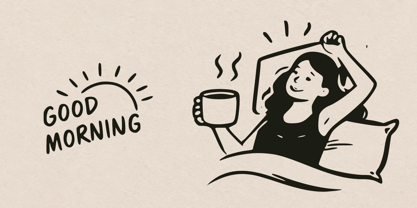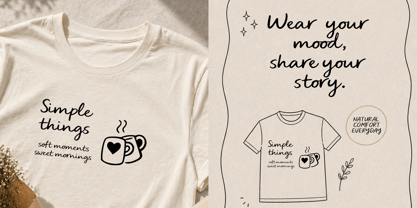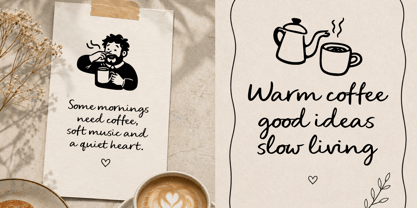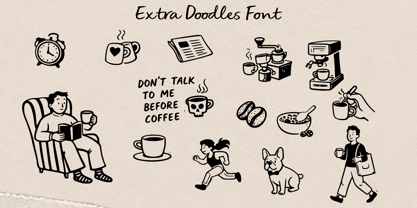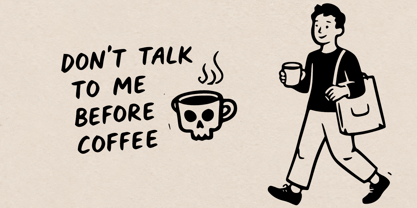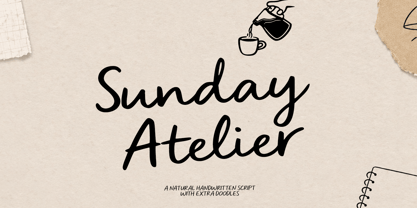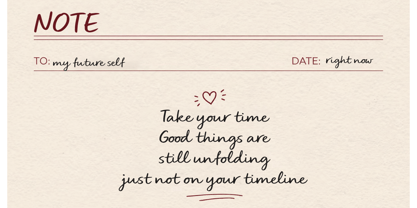
Sunday Atelier
by Cocodesign
The Sunday Atelier Font Family was designed by Muhammad Zaini and published by Cocodesign. Sunday Atelier contains 3 styles and family package options. More about this family
Sunday Atelier is a natural handwritten script font with a warm, effortless charm and clean flowing strokes. Designed to capture the beauty of authentic handwriting, this font brings a stylish and inviting touch to any creative project. With its smooth curves, balanced letterforms, and casual elegance, it works beautifully for branding, packaging, logos, social media, invitations, quotes, product labels, and modern lifestyle designs. Enhanced with 50+ extra hand-drawn doodles, this font offers even more creative possibilities. The bonus doodles are perfect for decorating logos, packaging, greeting cards, café branding, planners, posters, social media content, and playful design layouts. Perfect for creators who want a font that feels genuine, versatile, and timeless, Sunday Atelier adds character without losing readability. Whether used for bold headlines or delicate signatures, this script delivers a friendly and premium handcrafted look with added artistic extras.
Designers: Muhammad Zaini
Foundry: Cocodesign